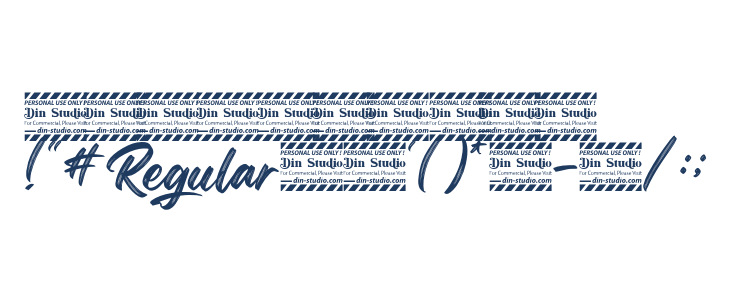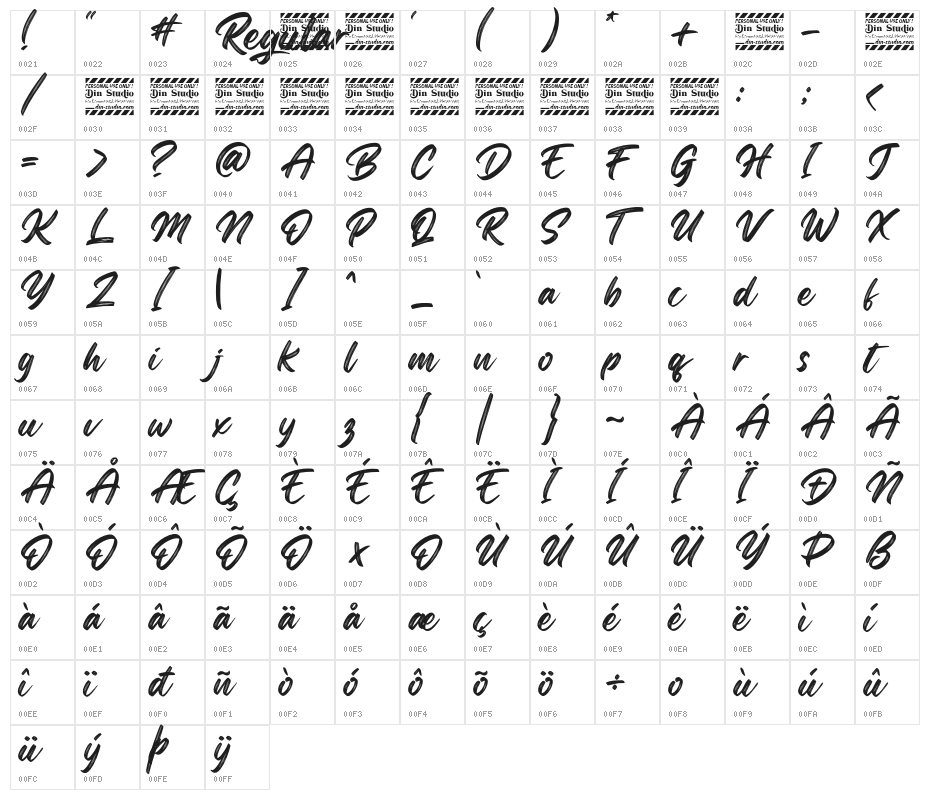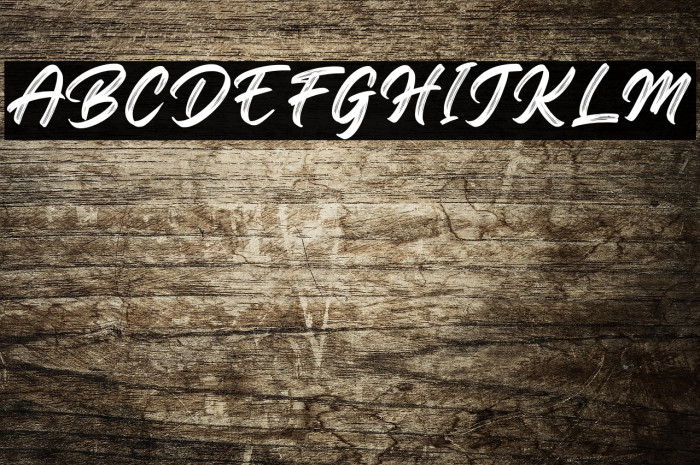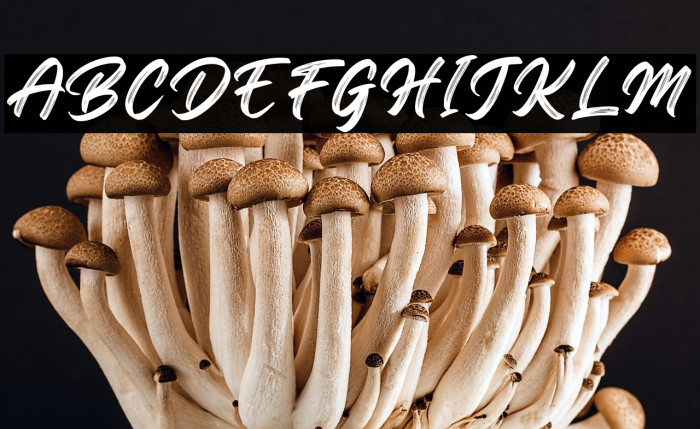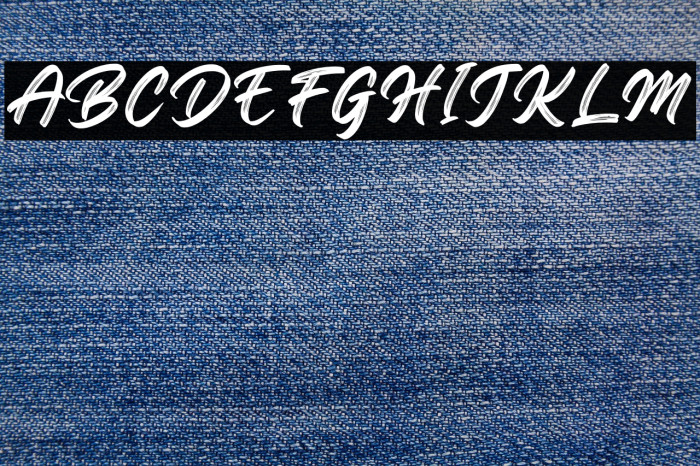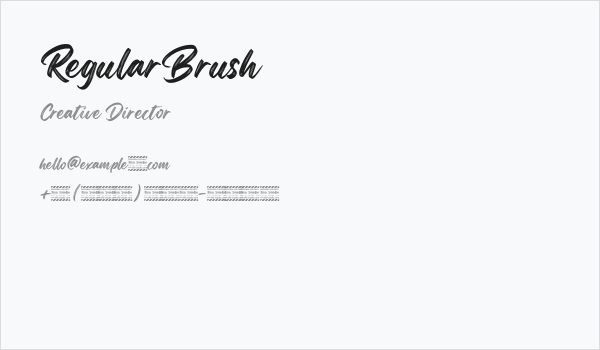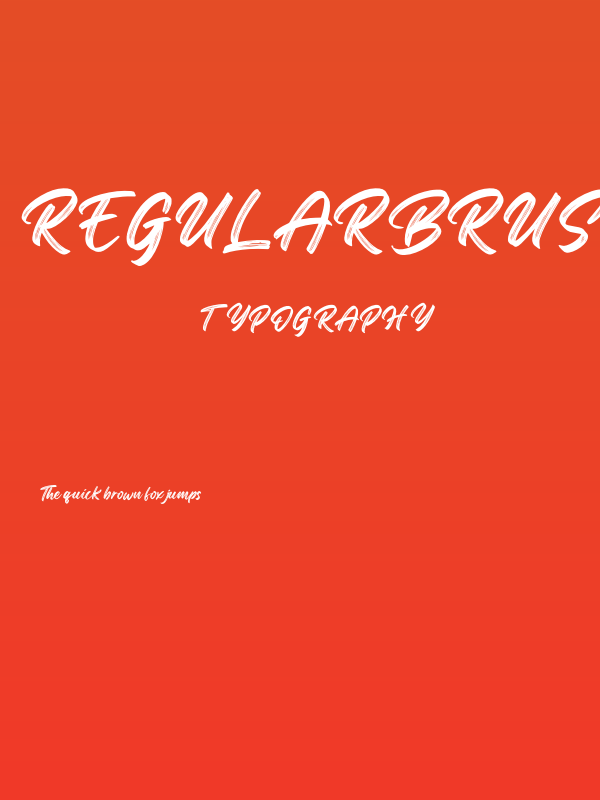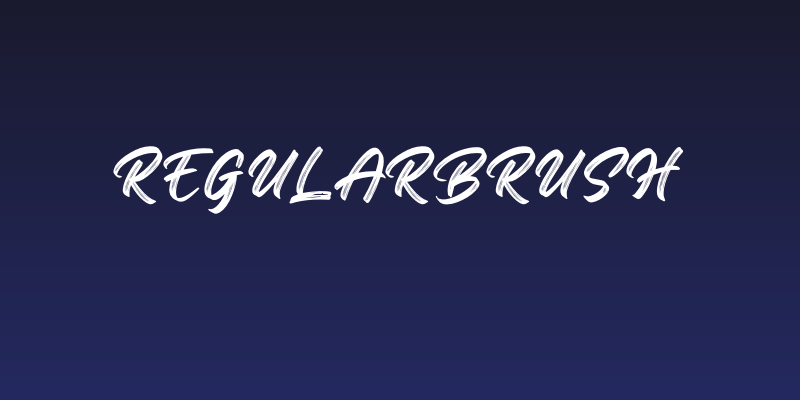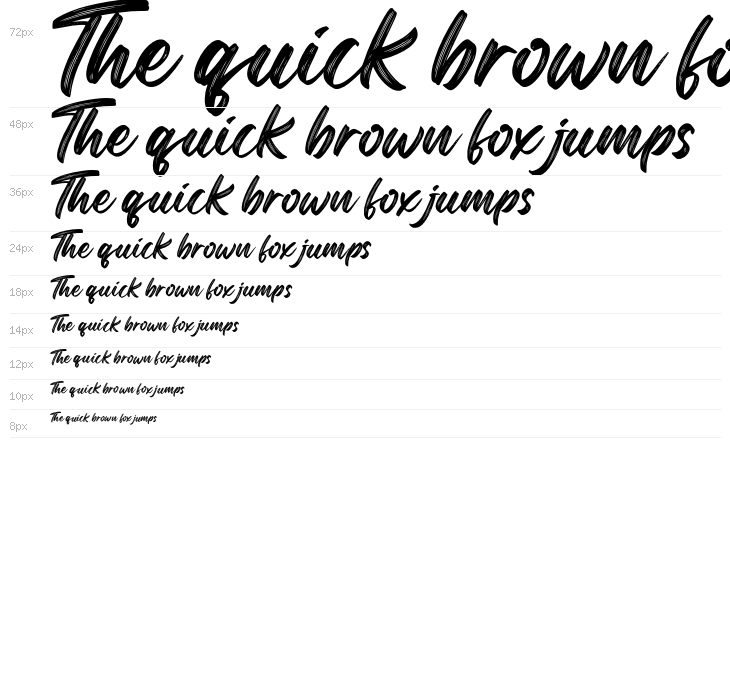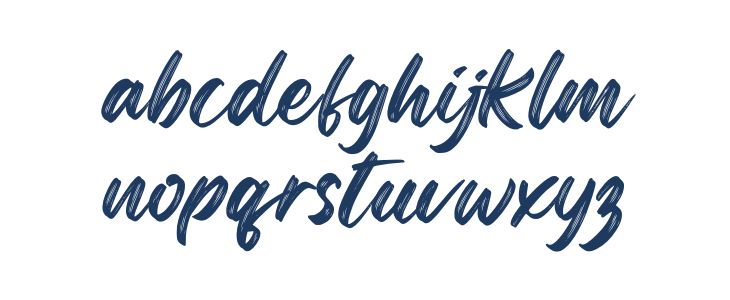
RegularBrush Font
This font features a bold, expressive brush script style with a dynamic and flowing appearance. The letters are interconnected, creating a sense of movement and fluidity. The strokes are thick and varied, giving the font a handcrafted, artistic feel. It is highly legible and maintains a consistent rhythm throughout the alphabet. The uppercase letters are slightly more formal, while the lowercase letters exhibit a casual, relaxed vibe. The font includes a full set of uppercase and lowercase letters, numbers, and a selection of special characters, making it versatile for various design needs.
| Proposed Projects | Ideal for branding, packaging, invitations, and social media graphics that require a personal and artistic touch. |